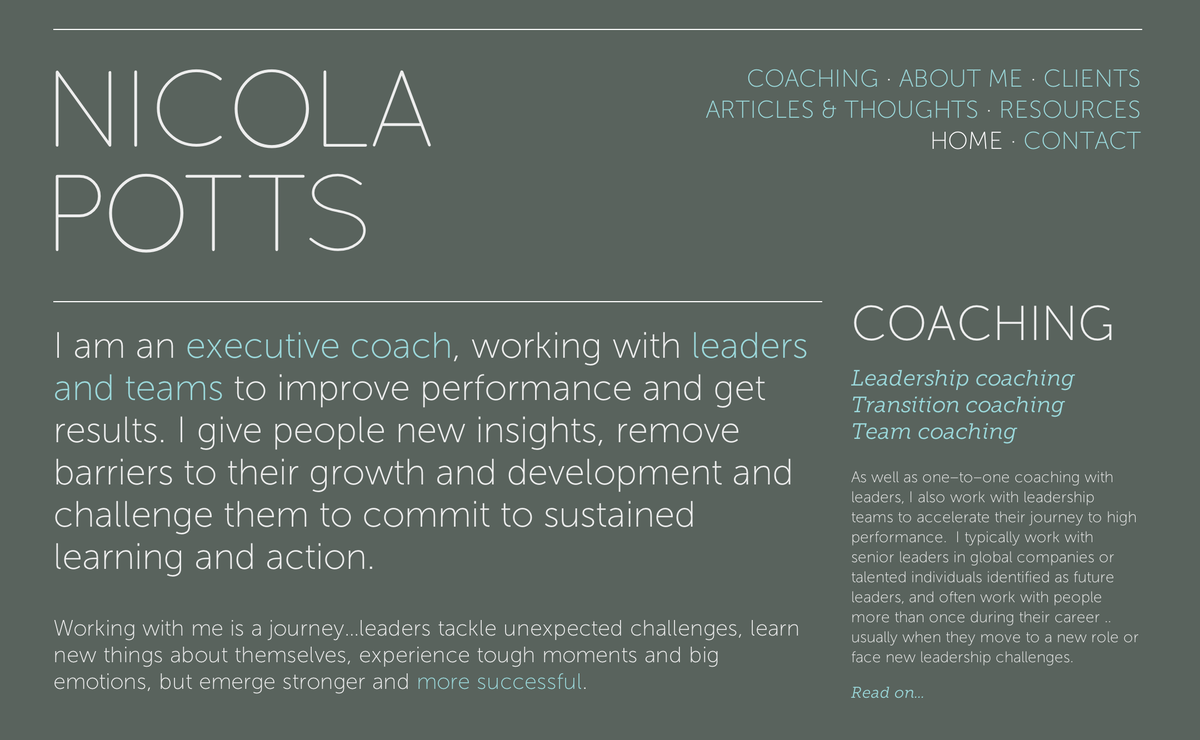
Museo Sans Font Google
It is a sturdy, low contrast, geometric, highly legible sans serif typeface very well suited for any. This is the free version, only 2 weights (museosans_500, museosans_500_italic). Host web font files on your own server.
Museo sans font family designed by exljbris font foundry. Museo sans is a completely free font that you can use in your graphic designs. It is a sturdy, low contrast, geometric, highly legible sans serif typeface very well suited for any display and text use.
Explore museo sans designed by jos buivenga at adobe fonts. The latest addition fonts more. Thanks to exljbris font foundry.
Museo sans 300 font screenshots. It is described as elegant and professional. Dowonload this fonts for graphic design , web fonts.
Museo sans font free download. Dowonload this fonts for graphic design , web fonts. A sans serif typeface with 37 styles, available from adobe fonts for sync and web use.